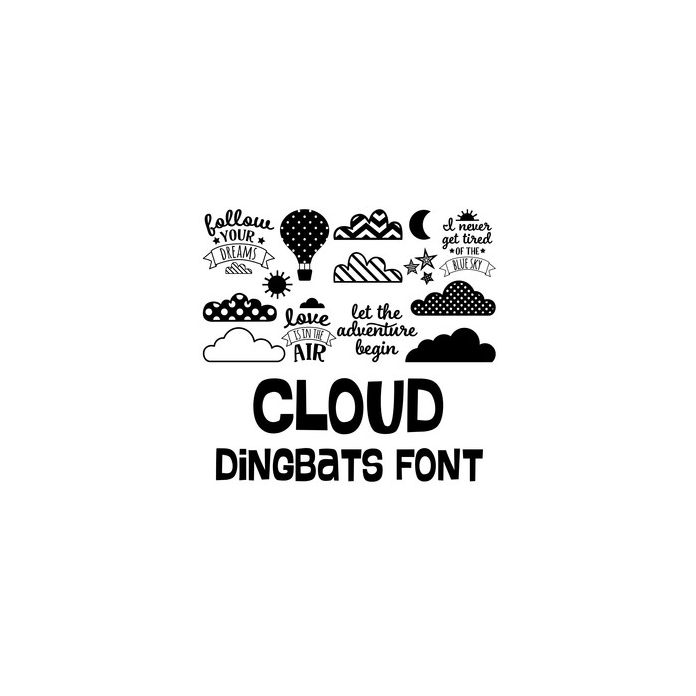
This cute dingbat font includes 26 cloud/sky icons and phrases that you can type + cut. Make adorable projects with this fun font. For ideas and inspiration visit www.loriwhitlock.com and www.facebook.com/lori.whitlock.studio. For Lori's video tutorials visit www.youtube.com/loriwhitlock. For a full tutorials list visit www.loriwhitlock.com/blog/tutorials.